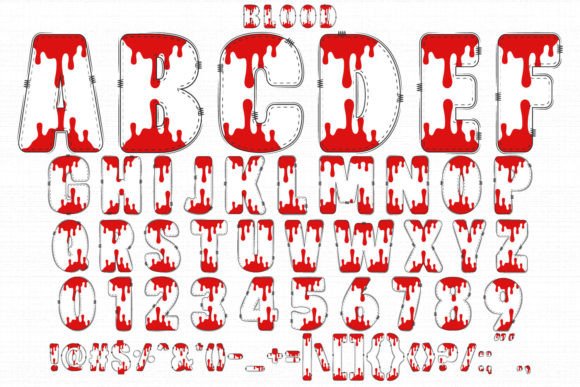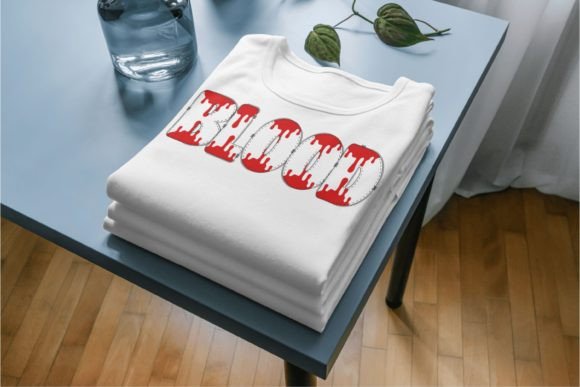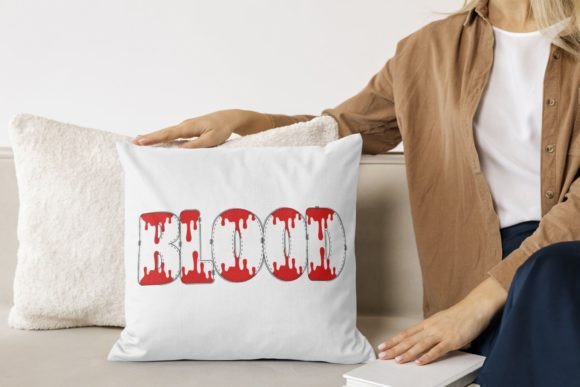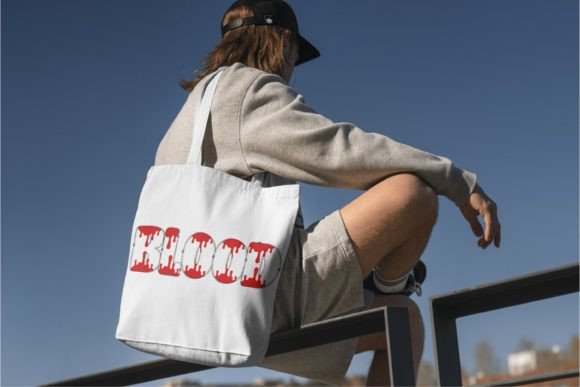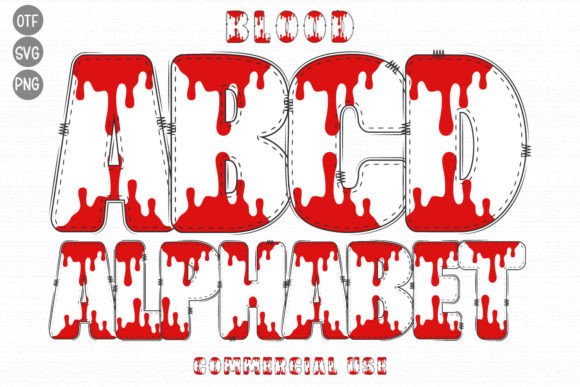
Blood Font: The Ultimate Decorative Font for Nature-Themed Designs
Are you a designer or crafter looking for a unique and creative way to add a touch of personality to your projects? Look no further than the Blood Font, a decorative font with a blood skin texture that’s perfect for nature-themed designs and children’s projects. In this article, we’ll explore the features and benefits of the Blood Font, and show you how it can elevate your creations to the next level.
What is Blood Font?
Blood Font is a decorative font that features a unique blood skin texture, giving it a distinctive and eye-catching look. The font is designed to resemble the texture of blood, with a rough and organic feel that’s perfect for creating bold and attention-grabbing designs. Whether you’re working on a nature-themed project, a children’s book, or simply want to add a touch of personality to your designs, the Blood Font is an excellent choice.
Key Features of Blood Font
- Unique texture: The Blood Font features a one-of-a-kind blood skin texture that sets it apart from other decorative fonts.
- Nature-themed: The font’s organic feel makes it perfect for nature-themed designs, such as logos, posters, and brochures.
- Children’s projects: The Blood Font is also suitable for children’s projects, such as book covers, activity sheets, and educational materials.
- Versatile: The font can be used for a wide range of projects, from bold and dramatic designs to more subtle and elegant creations.
Benefits of Using Blood Font
So why choose the Blood Font for your next project? Here are just a few benefits of using this unique and versatile font:
- Adds personality: The Blood Font adds a touch of personality and whimsy to your designs, making them stand out from the crowd.
- Creates visual interest: The font’s unique texture and bold design create visual interest and grab the viewer’s attention.
- High-quality: The font is high-quality and scalable, ensuring that it looks great in any size or resolution.
How to Use Blood Font in Your Designs
Using the Blood Font in your designs is easy. Here are a few tips to get you started:
- Pair with bold colors: The Blood Font looks great paired with bold and bright colors, making it perfect for creating eye-catching designs.
- Use for headings: The font is perfect for headings and titles, adding a touch of personality and whimsy to your designs.
- Experiment with sizes: The Blood Font looks great in a variety of sizes, from small and subtle to large and bold.
- Combine with other fonts: The font can be paired with other fonts to create a unique and visually interesting design.
| Font Name | Blood Font |
| Author | Cute fonts |
In conclusion, the Blood Font is a unique and versatile decorative font that’s perfect for nature-themed designs and children’s projects. With its distinctive blood skin texture and bold design, it’s sure to add a touch of personality and whimsy to your creations. Whether you’re a designer or crafter, the Blood Font is an excellent addition to your font library. So why not give it a try and see how it can elevate your designs to the next level?
The Blood Font is a unique and versatile decorative font that’s perfect for designers and crafters looking to add a touch of personality to their projects. With its distinctive blood skin texture and bold design, it’s sure to make your creations stand out from the crowd. Whether you’re working on a nature-themed project, a children’s book, or simply want to add a touch of whimsy to your designs, the Blood Font is an excellent choice.